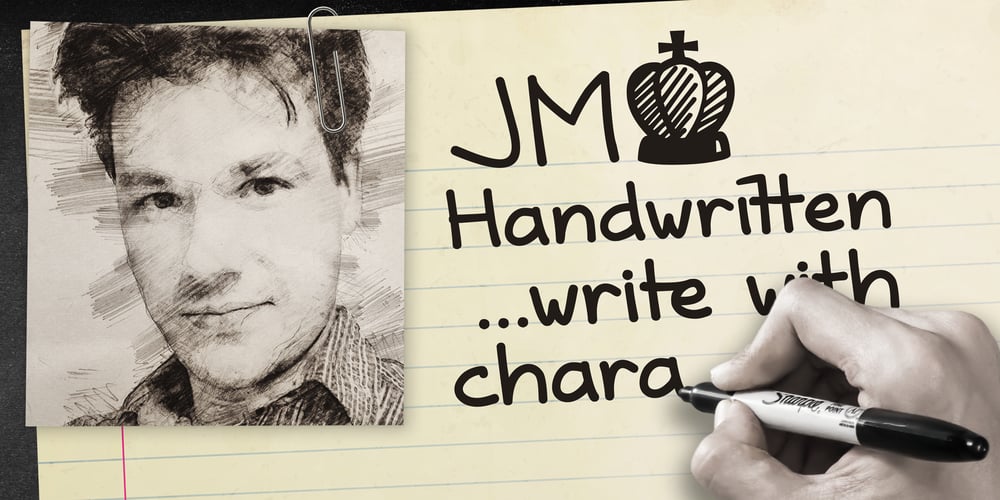
JM Handwritten Font Family was designed by Jiří Macík and published by Jiří Macík. JM Handwritten contains 4 styles and family package options. JM Handwritten is a refined and highly legible handwritten typeface, crafted to bring natural elegance and readability to extended text passages.This typeface shines on chalkboards, paper, sheet music, and personal notes, making it a versatile choice for creative and professional projects.With support for Latin, Cyrillic, and Greek scripts, JM Handwritten is an excellent tool for multilingual designs. The font includes a rich set of symbols, covering arrows, mathematical notation, and even chess symbols.Designed for fluidity and natural rhythm, it features numerous discretionary ligatures, enhancing its handwritten authenticity. Whether for branding, editorial design, or artistic expression, JM Handwritten captures the essence of expressive handwriting with a touch of sophistication.